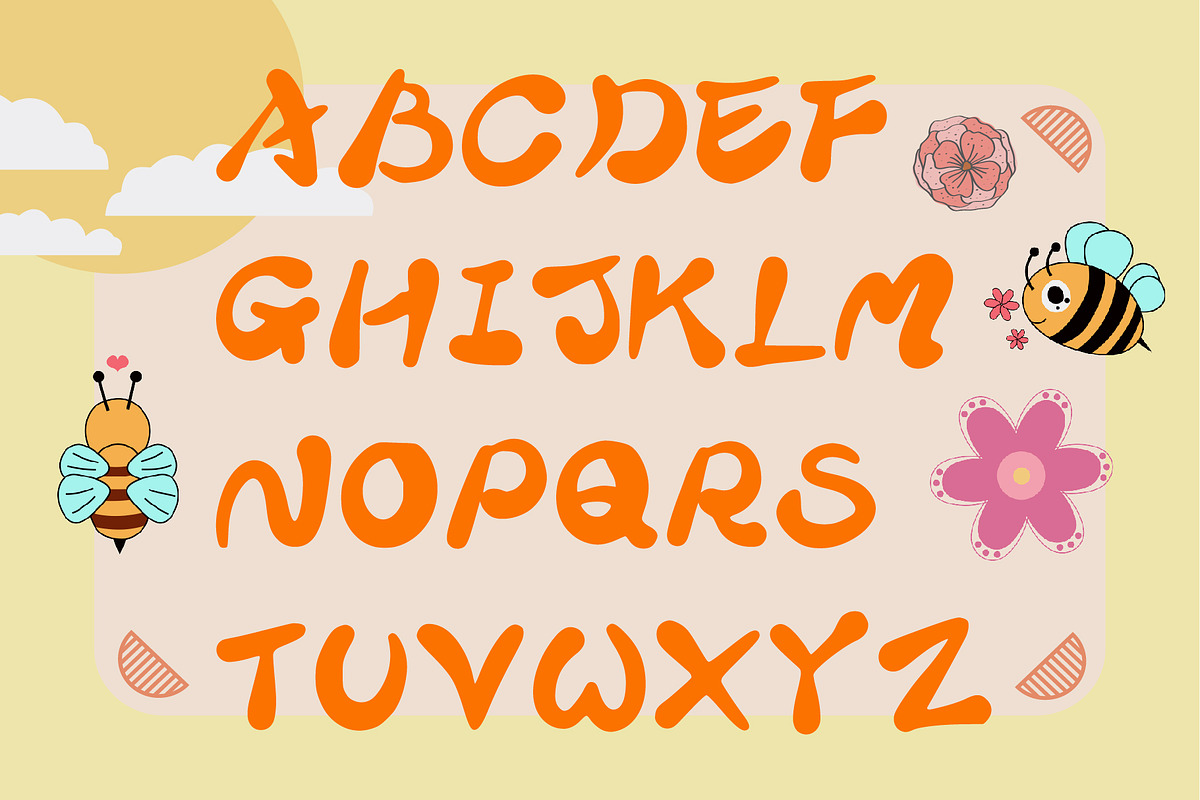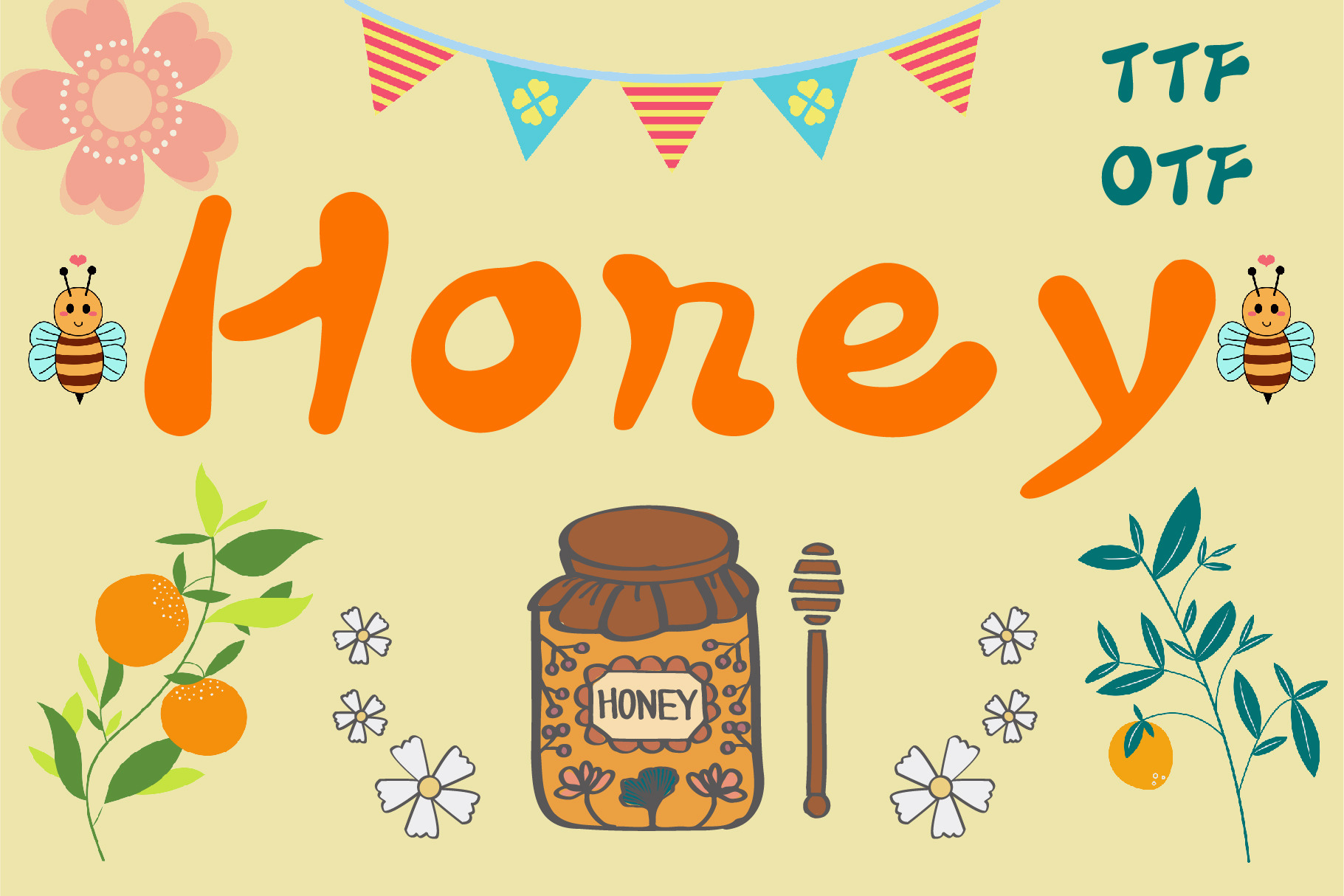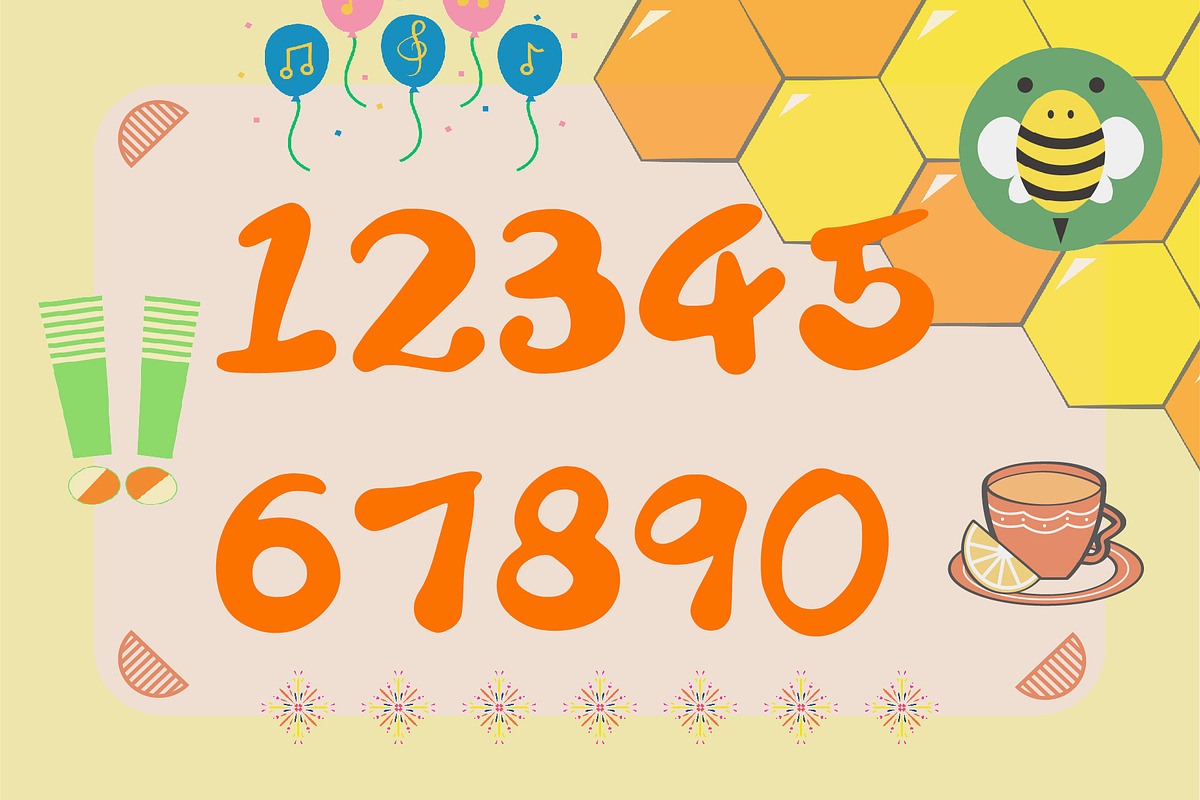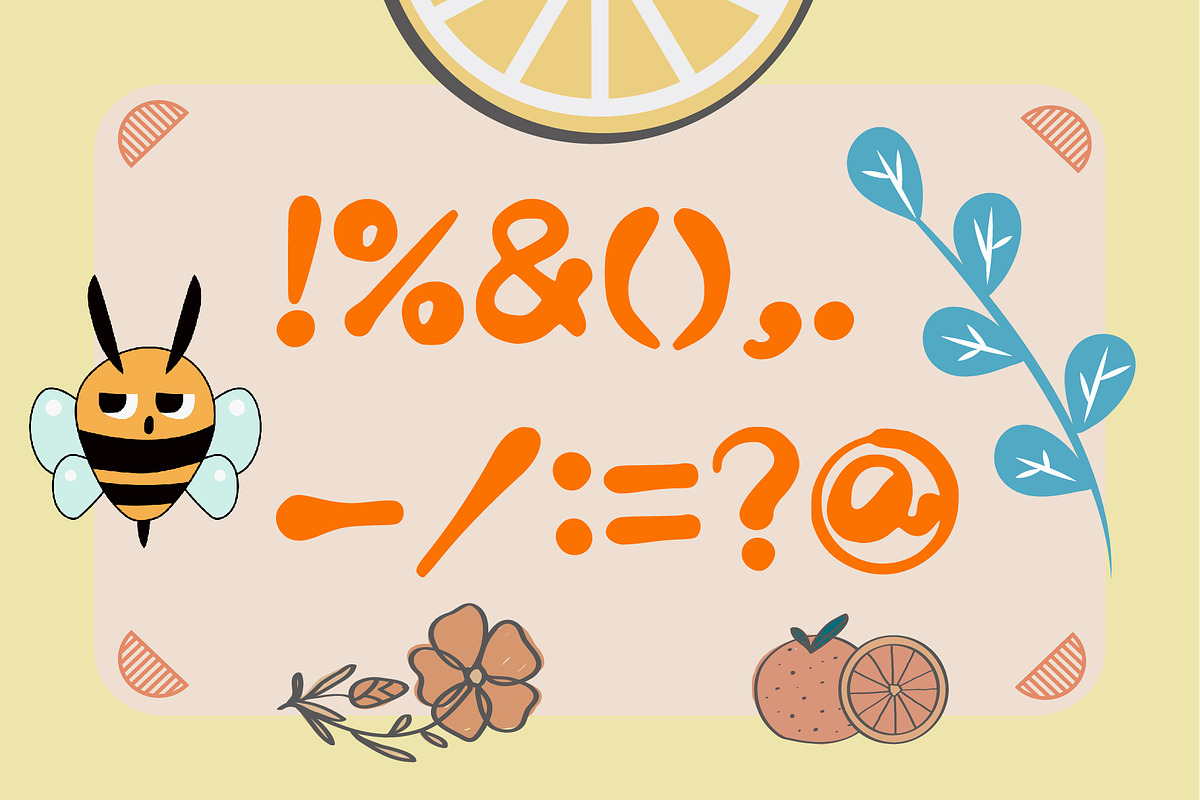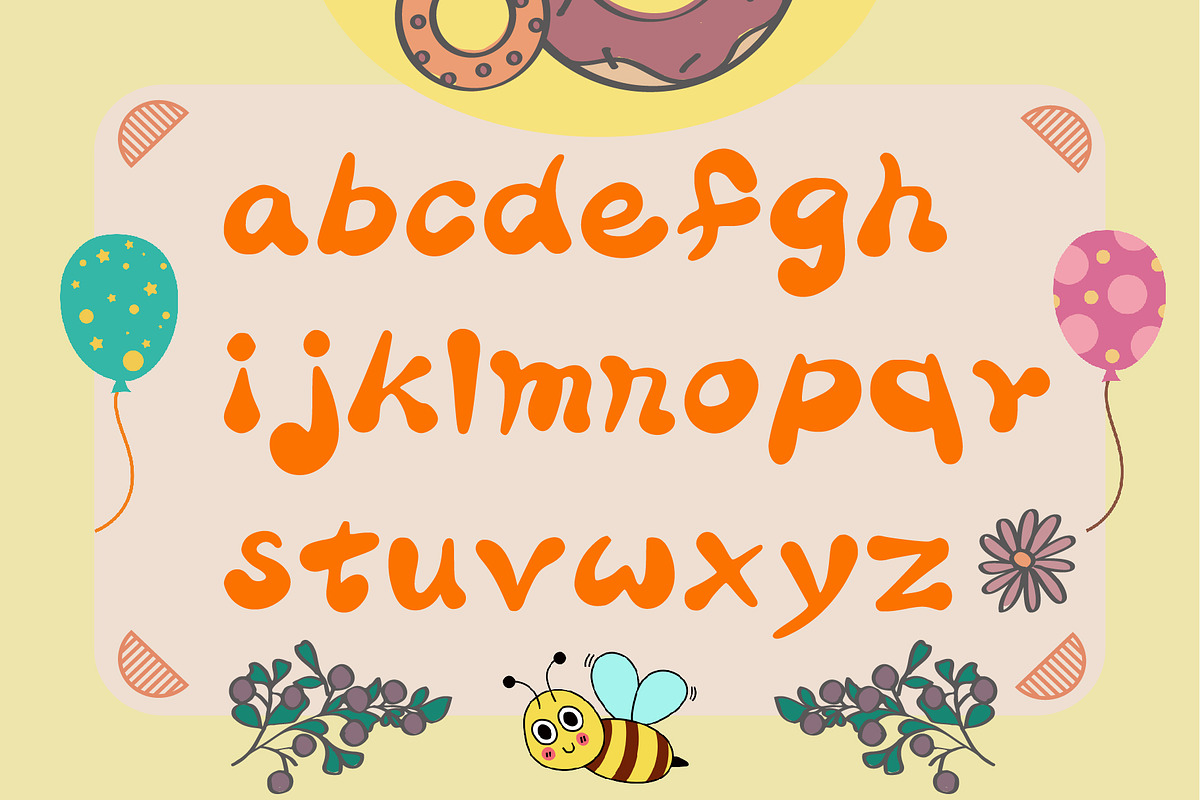
Honey Handwritten Font
A cute and interesting modern font . It is very suitable for use in holidays and commemorative moments. This font is suitable for titles, posters, packaging, clothes, banners, book design, business card design, website design, instagram, pintestest, etc.